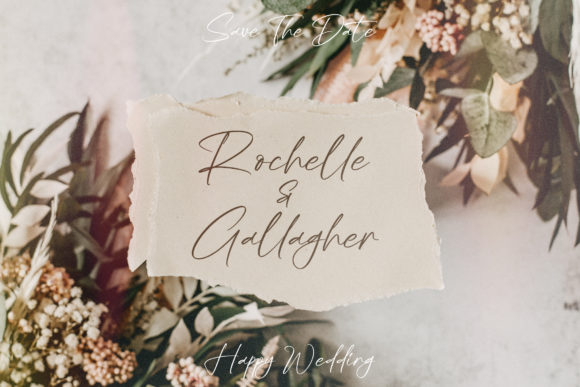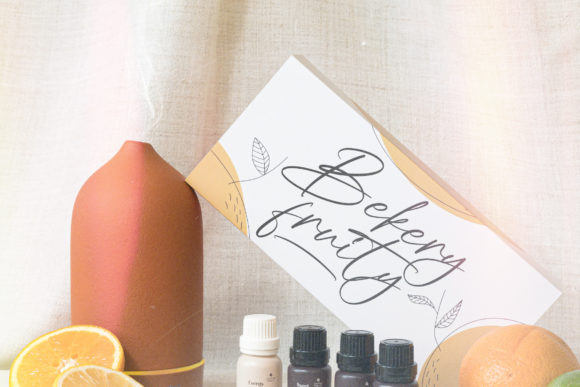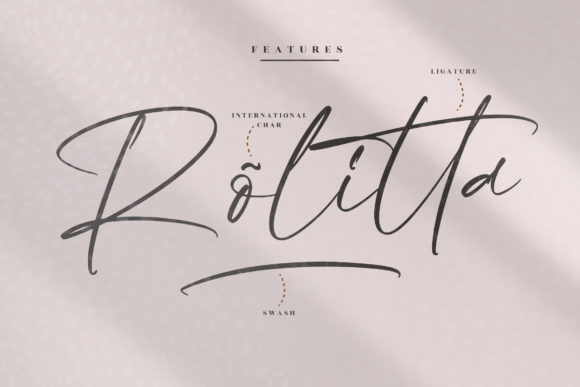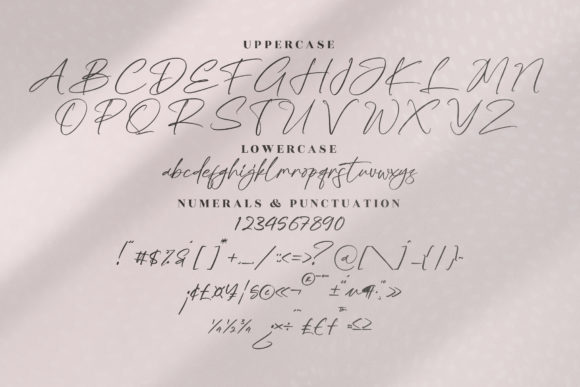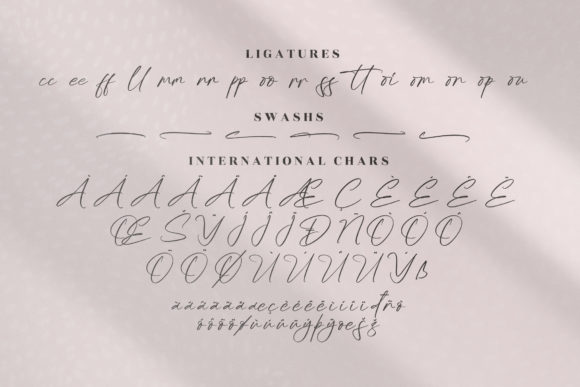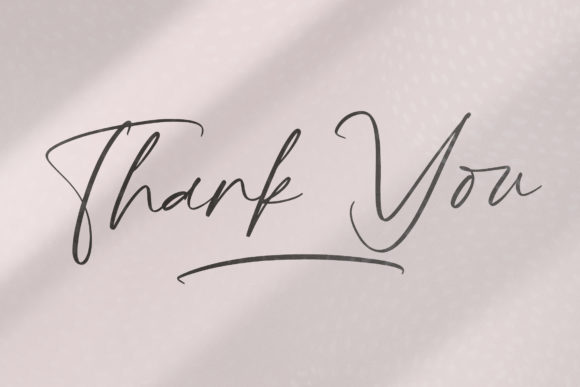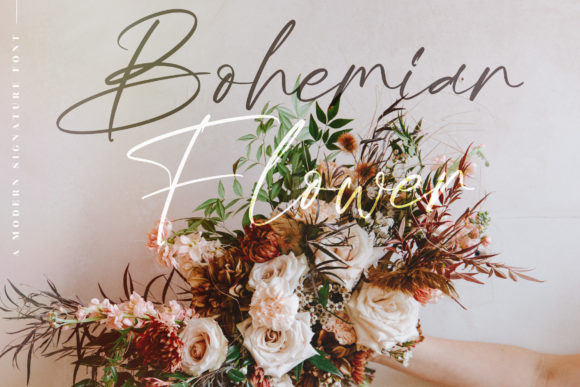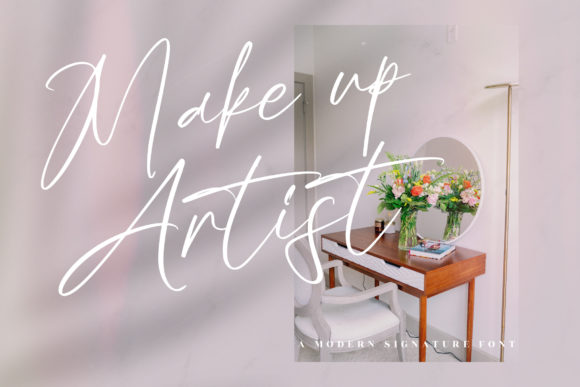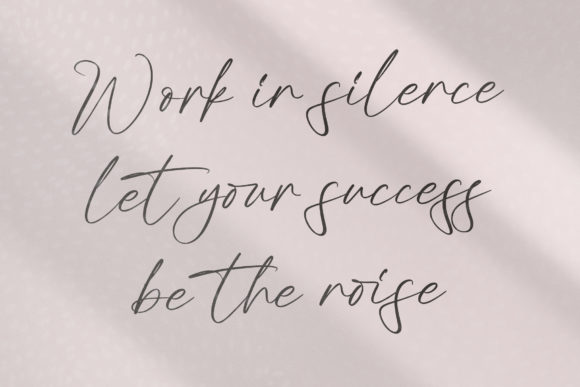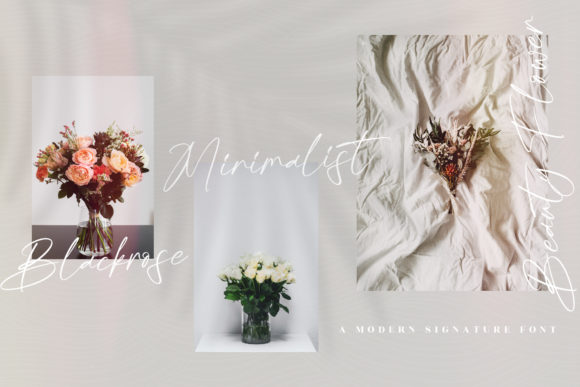
Blackmore Font
About Blackmore Font
“Blackmore” presents itself as a delicate and fashionable script font that exudes a sense of refinement. Its design is particularly well-suited for a range of branding projects, including logos, t-shirt printing, and creative products. With its versatile nature, “Blackmore” is poised to stand out in various contexts and elevate the aesthetics of your design projects.
The allure of “Blackmore” lies in its ability to convey a touch of sophistication and style through its carefully crafted design. Its delicate strokes and fashionable details contribute to an aesthetic that resonates with elegance and visual appeal. This font’s adaptability ensures that it can seamlessly integrate into different design scenarios.
Whether you’re aiming to create striking logos, enhance the visual appeal of t-shirt designs, or infuse creativity into various branding materials, “Blackmore” becomes a valuable asset. Its unique design can elevate the visual impact of your work and make it stand out with a touch of refined charm.
Incorporating “Blackmore” into your design projects means embracing its delicate and fashionable attributes. By harnessing its unique charm, you’re enhancing the visual allure of your work and ensuring that your designs resonate effectively with your intended audience. This font becomes a versatile instrument for infusing your creations with a touch of sophistication and contemporary style, making them extraordinary in a variety of contexts.